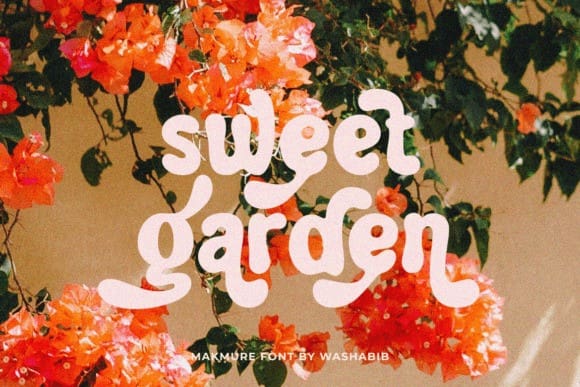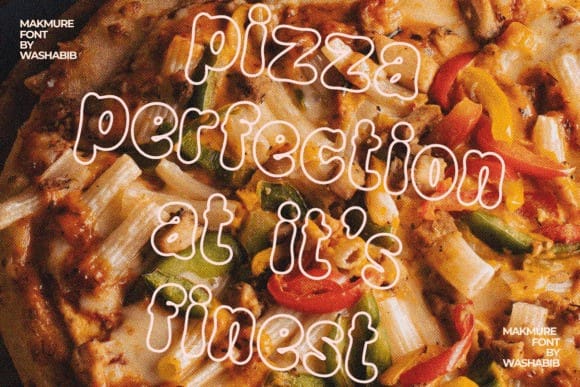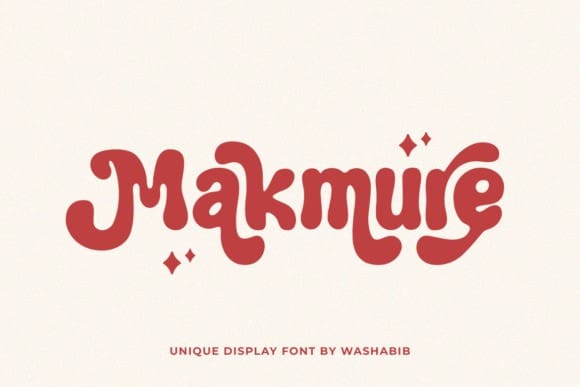
Makmure Display Font
Makmure Display Font is a modern and classic serif font. It is perfectly used for posters, invitations, social media, business cards, web design and so much more.